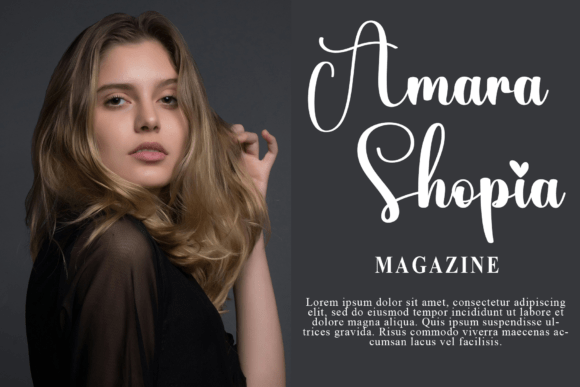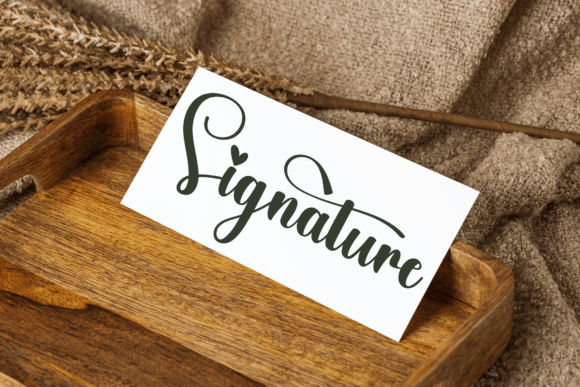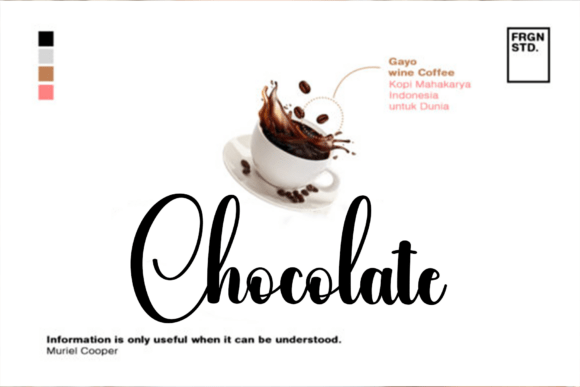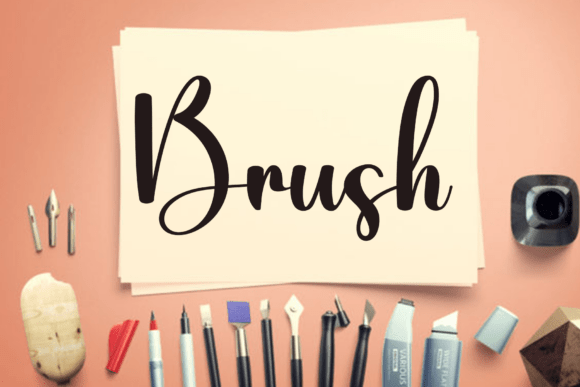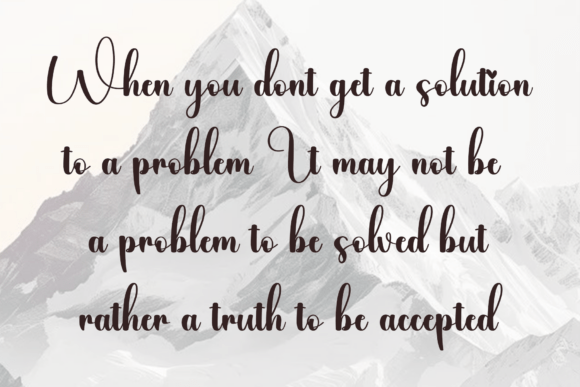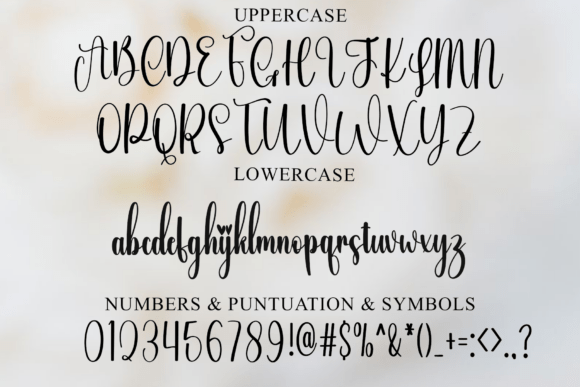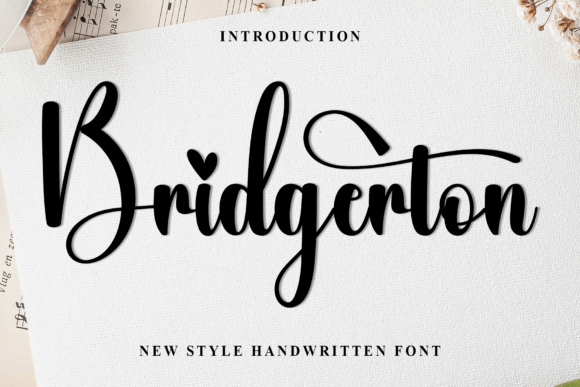
Bridgerton Font: Add a Touch of Holiday Magic to Your Designs
The holiday season is upon us, and with it comes the desire to create festive and merry designs that capture the spirit of the season. If you’re a designer or crafter looking for a typeface that embodies the whimsy and enchantment of the holidays, look no further than the Bridgerton Font. This delightful font is perfect for adding a touch of nostalgia and cheer to your projects, from greeting cards and gift tags to holiday-themed crafts and decorations.
What is Bridgerton Font?
Bridgerton Font is a decorative typeface that is specifically designed to evoke the magic and wonder of the holiday season. With its intricate details and whimsical flair, this font is sure to add a touch of enchantment to your designs. Whether you’re creating holiday cards, gift tags, or other festive projects, Bridgerton Font is the perfect choice for bringing a sense of nostalgia and cheer to your words.
Key Features of Bridgerton Font
So, what makes Bridgerton Font so special? Here are just a few of its key features:
- Decorative elements: Bridgerton Font features a range of decorative elements, including intricate details and flourishes, that add a touch of whimsy and elegance to your designs.
- Whimsical flair: This font has a playful, whimsical feel that’s perfect for capturing the spirit of the holiday season.
- PUA encoded: Bridgerton Font is PUA (Private Use Area) encoded, which means that you can access all of the amazing glyphs and ligatures with ease.
- Perfect for holiday projects: Whether you’re creating holiday cards, gift tags, or other festive projects, Bridgerton Font is the perfect choice for bringing a sense of nostalgia and cheer to your words.
Uses for Bridgerton Font
Bridgerton Font is a versatile typeface that can be used for a wide range of holiday projects, including:
- Greeting cards: Create festive and merry holiday cards that are sure to delight your friends and family.
- Gift tags: Add a touch of elegance and whimsy to your gift tags with Bridgerton Font.
- Holiday crafts: Use Bridgerton Font to add a festive touch to your holiday crafts, from decorations to DIY projects.
- Social media graphics: Create festive and engaging social media graphics that are sure to get your followers in the holiday spirit.
Tips for Using Bridgerton Font
Here are a few tips for getting the most out of Bridgerton Font:
- Experiment with different sizes and colors: Don’t be afraid to experiment with different sizes and colors to find the perfect look for your project.
- Pair with other festive fonts: Consider pairing Bridgerton Font with other festive fonts to create a unique and eye-catching look.
- Use for headlines and titles: Bridgerton Font is perfect for headlines and titles, where its decorative elements and whimsical flair can really shine.